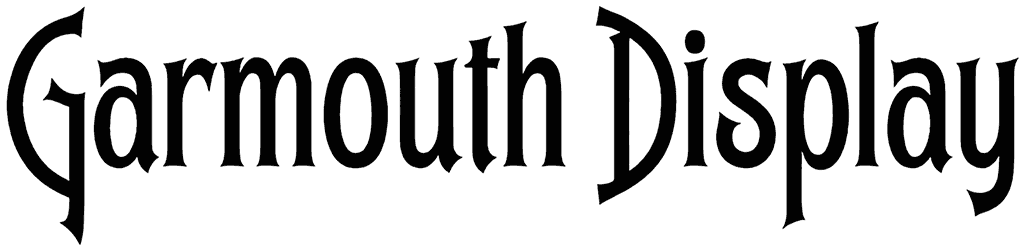
Garmouth Display Font
Classic and dated, Garmouth Display is a fancy retro font. Although this strong font does not have numerals, it is still quite effective in drawing the reader’s attention.